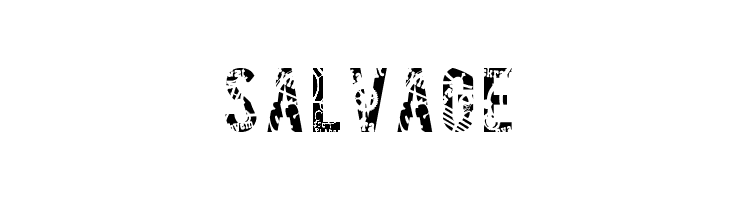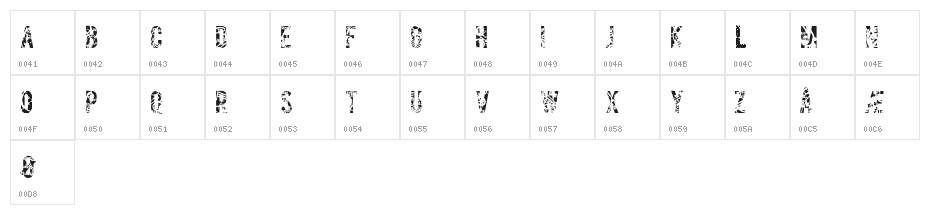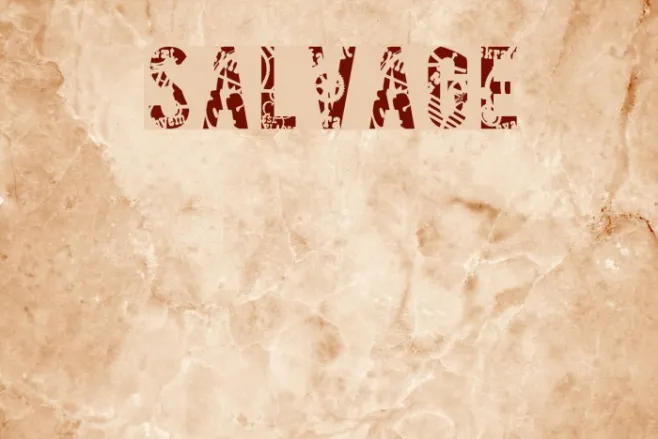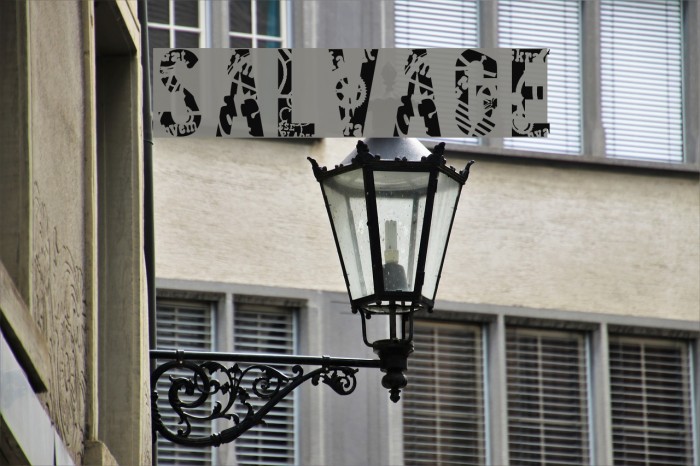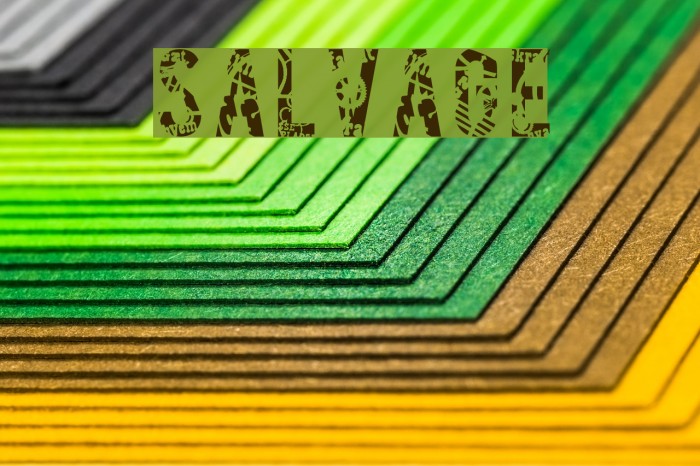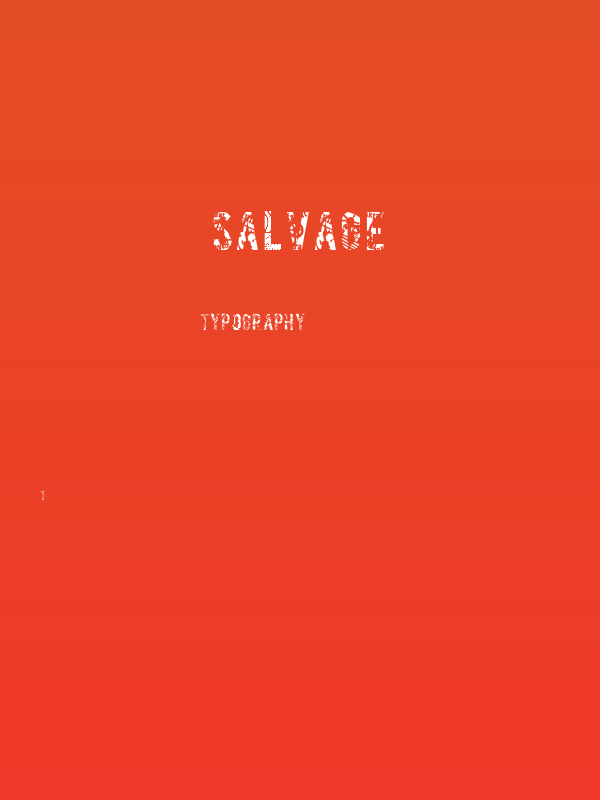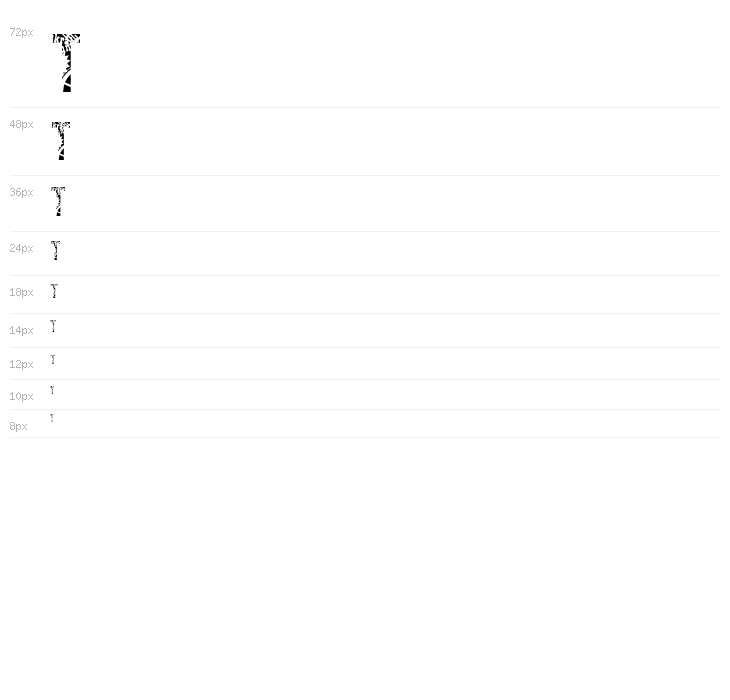
SALVAGE Font
SALVAGE Description
This font features a bold and distressed style, with each letter appearing as if it has been weathered or eroded over time. The design incorporates a pattern of scratches and irregularities, giving it a rugged and industrial feel. The uppercase letters are prominent and impactful, making them suitable for attention-grabbing headlines or titles. The font's unique texture adds depth and character, making it stand out in any design project. Its boldness and decorative elements make it ideal for projects that require a strong visual impact.
| Proposed Projects | Ideal for posters, album covers, branding for outdoor or adventure-themed products, and any design needing a strong, gritty aesthetic. |